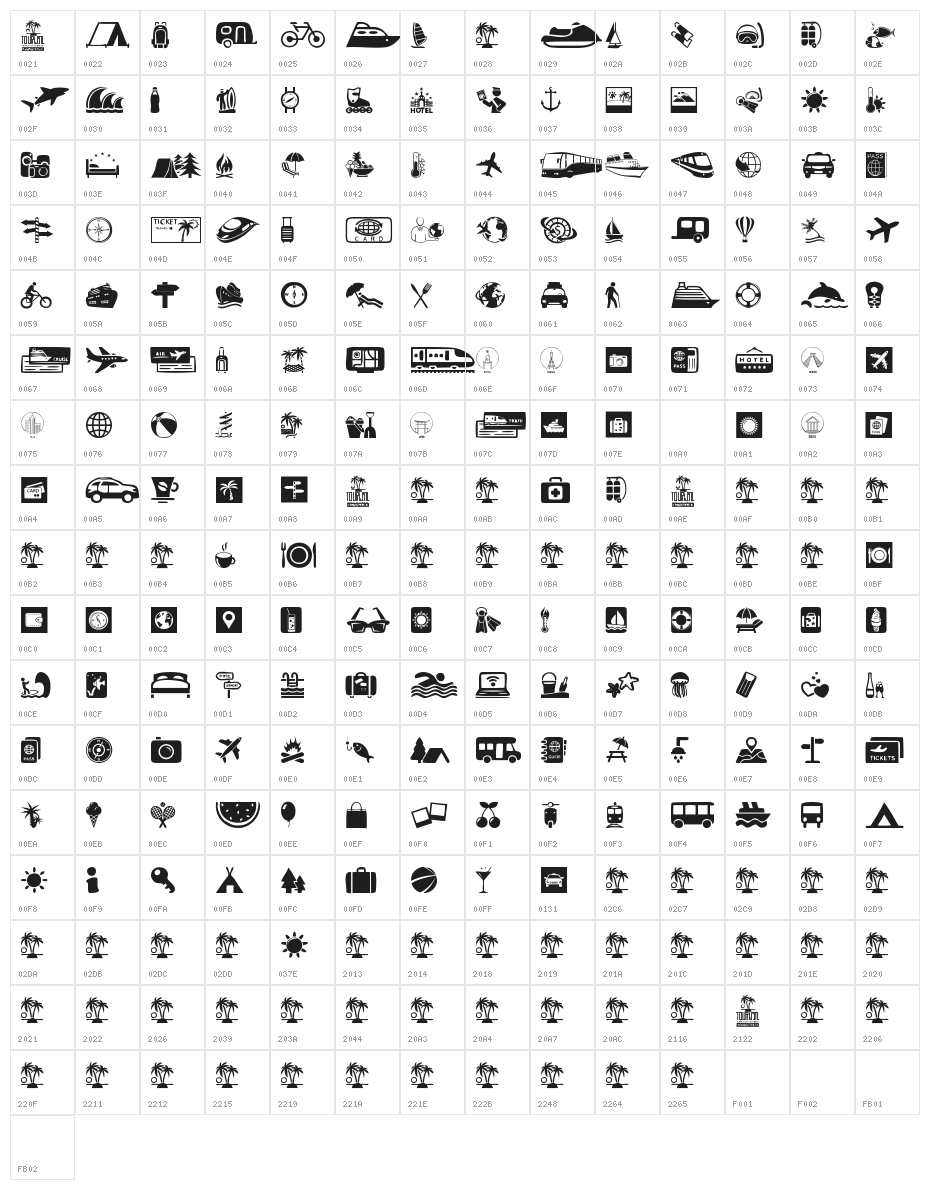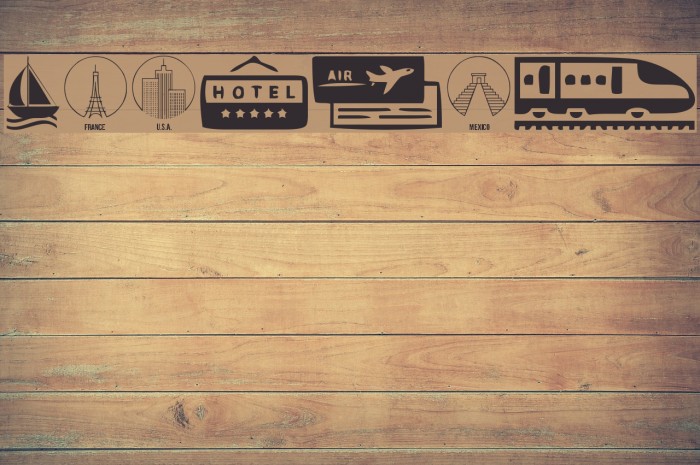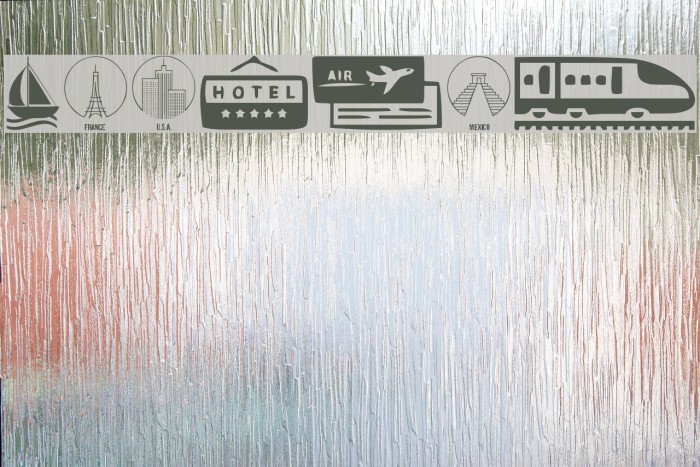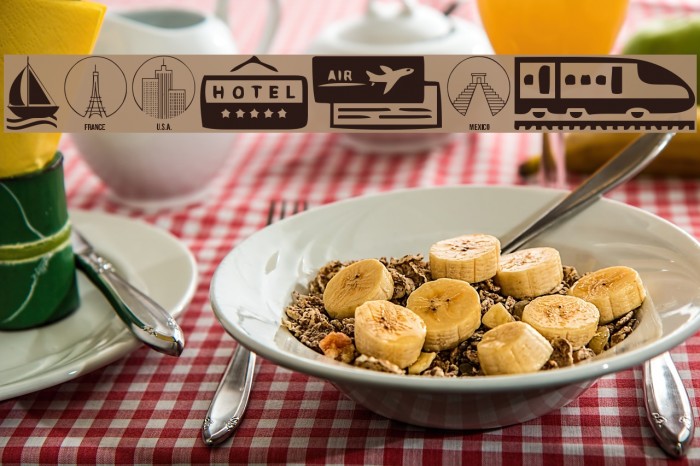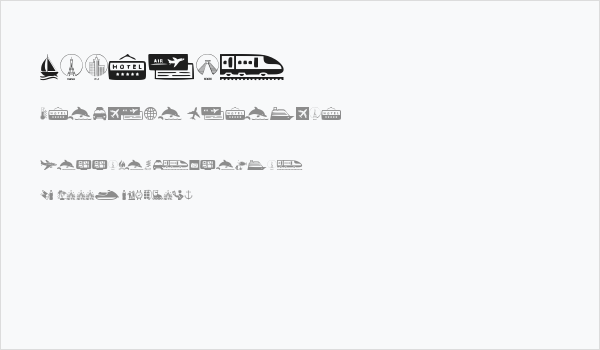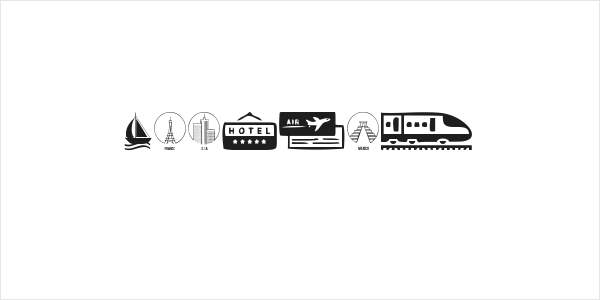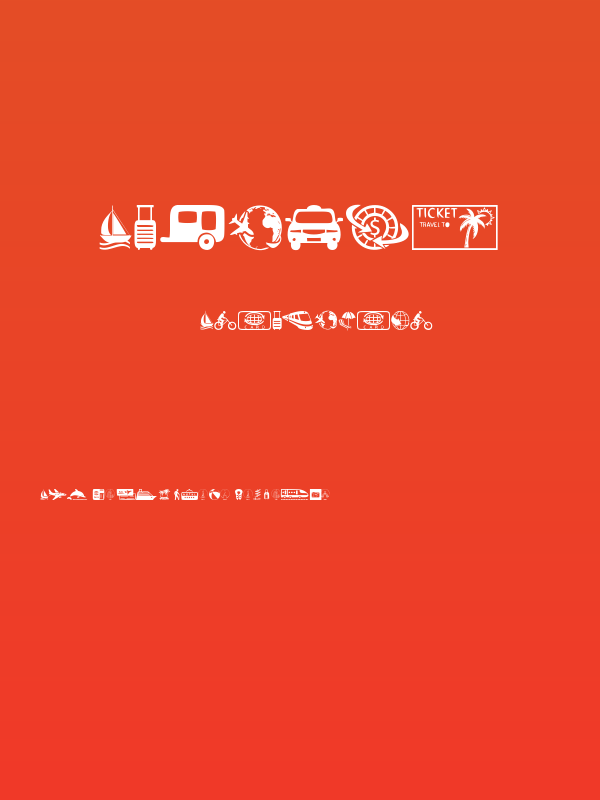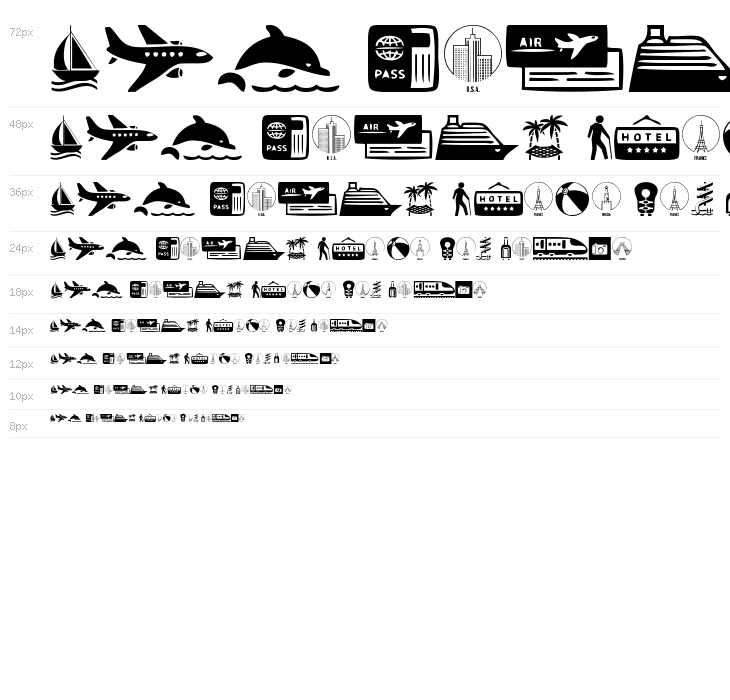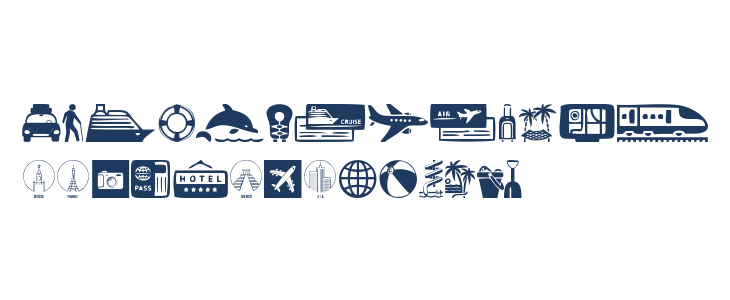
Tourism Font
Tourism Description
A collection of bold, high-contrast pictograms representing various tourism and travel-related themes, including transportation, accommodation, activities, and destinations. The icons are solid, filled, and feature simplified, easily recognizable shapes with consistent line thickness and minimal detail.
| Use Case | Icons, Signage, Infographics, Branding |
| Proposed Projects | Travel brochures, tourism websites, mobile apps, signage, infographics, wayfinding systems. |